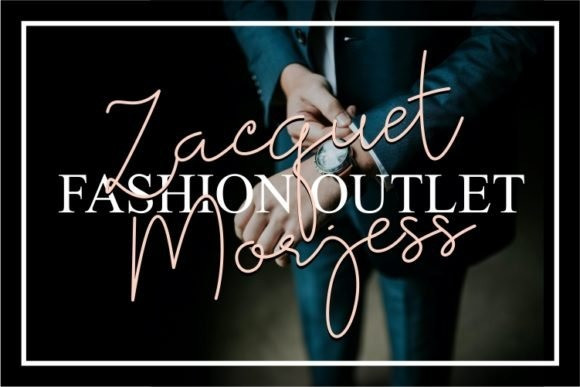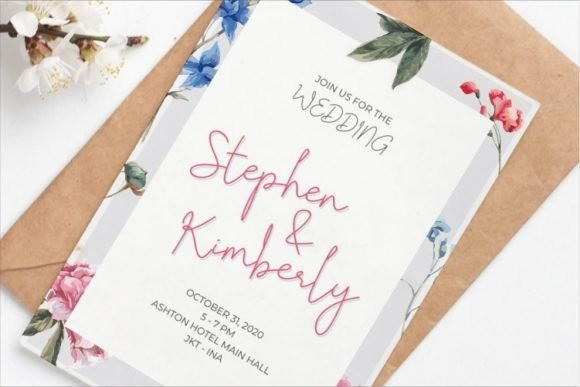
The Eight Script Font
The Eight Script Font by chamdan abdul chakim 11,678 downloads
The Eight is a modern, relaxed and flowing handwritten font. Not too thin and not too thick, balanced and varied, this font was designed to enhance the beauty of your projects.
Designer Name: chamdan abdul chakim